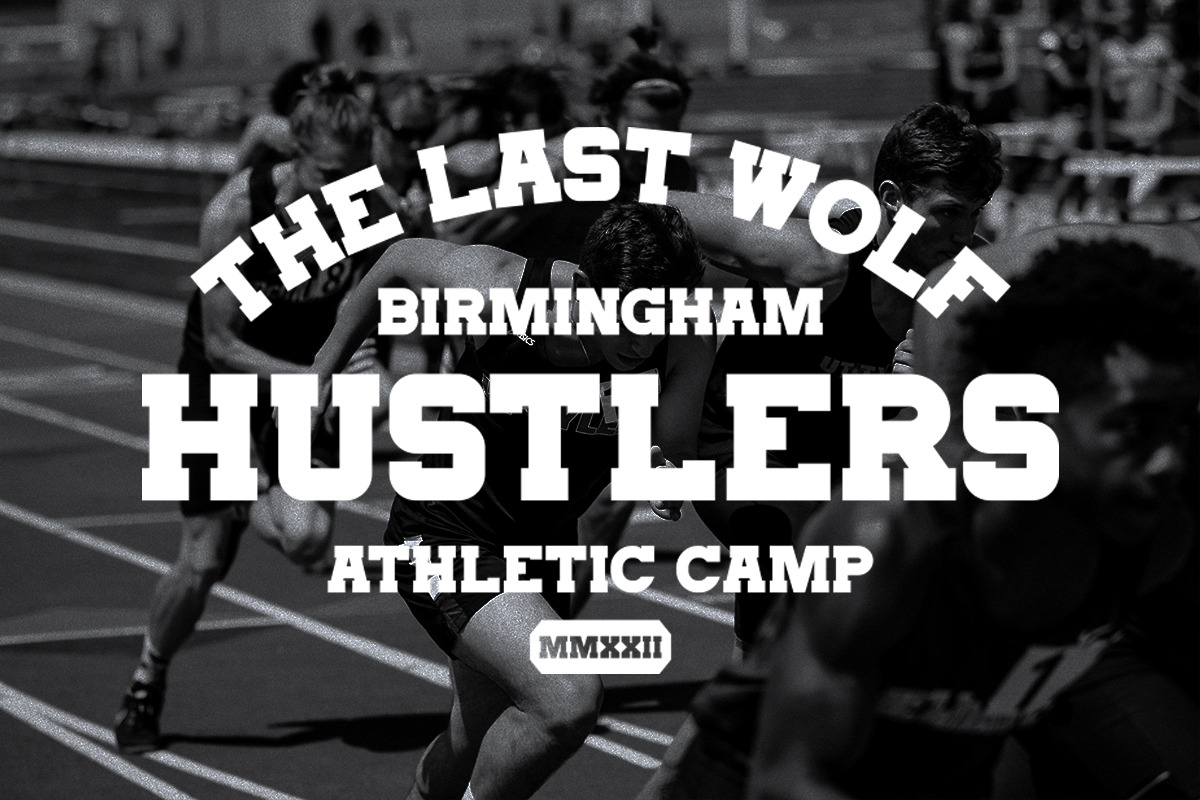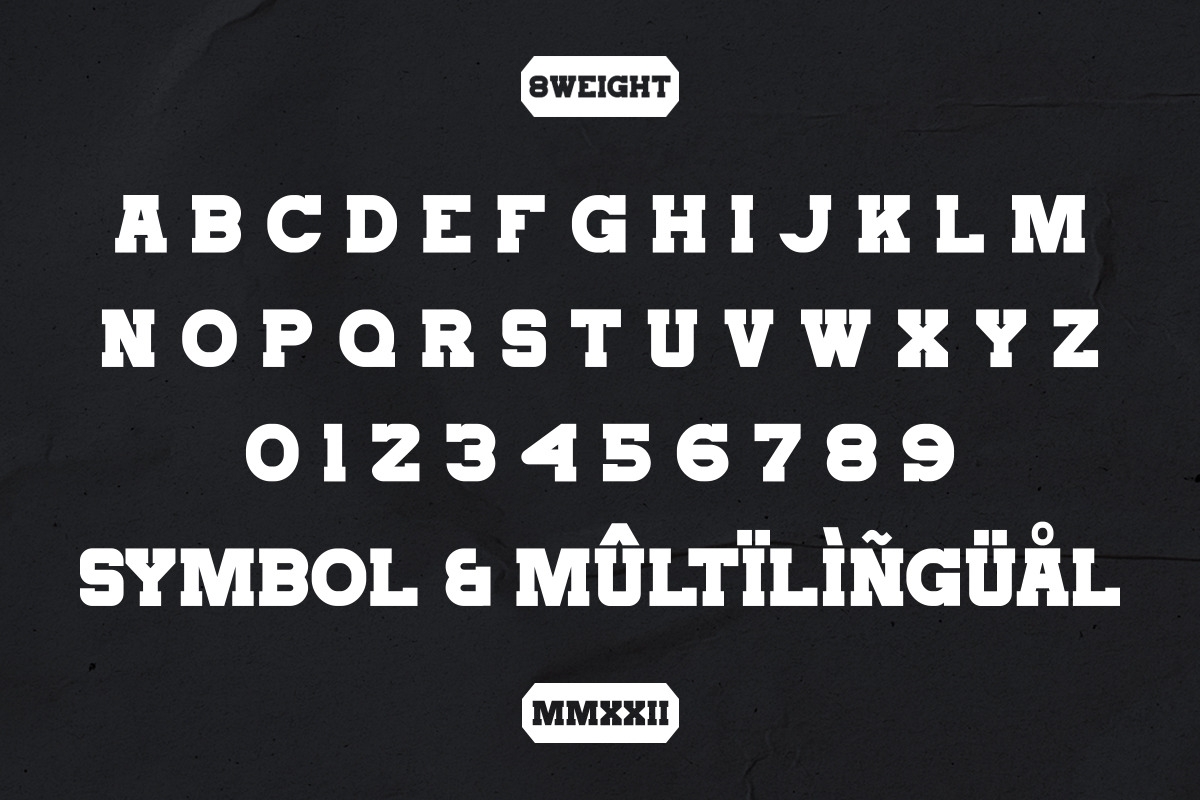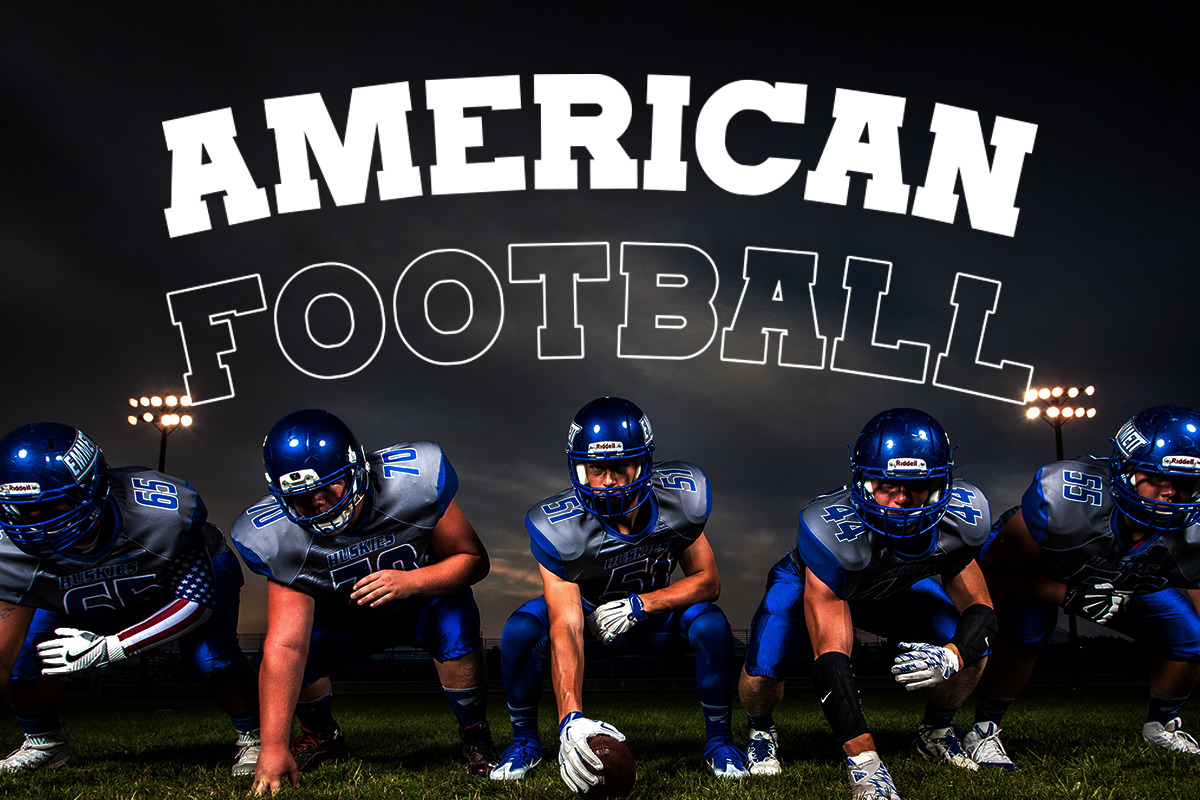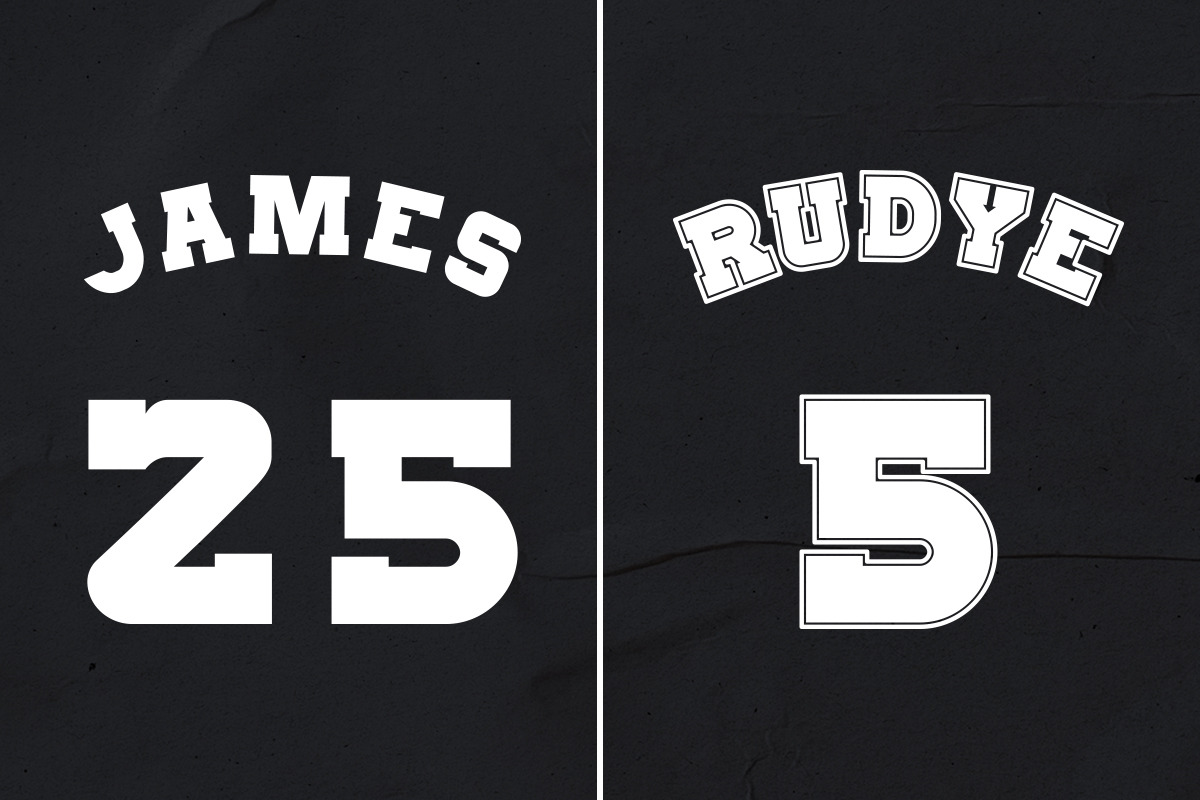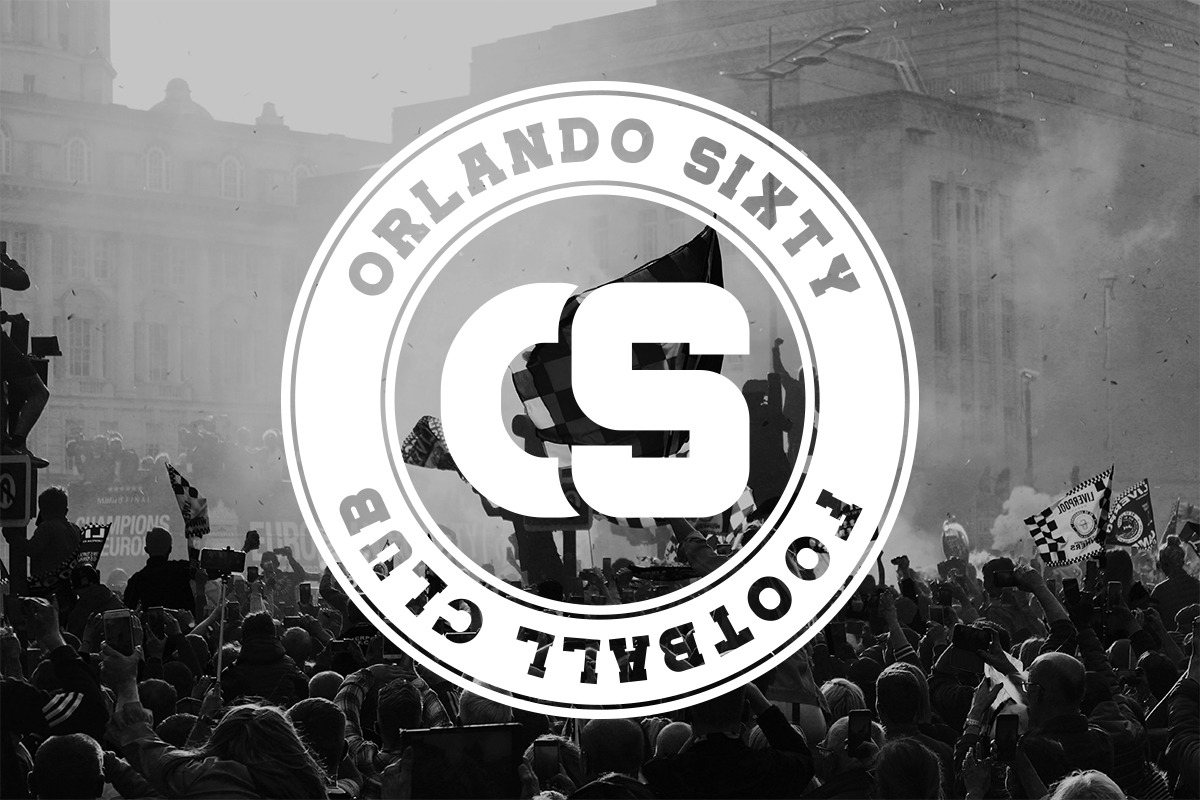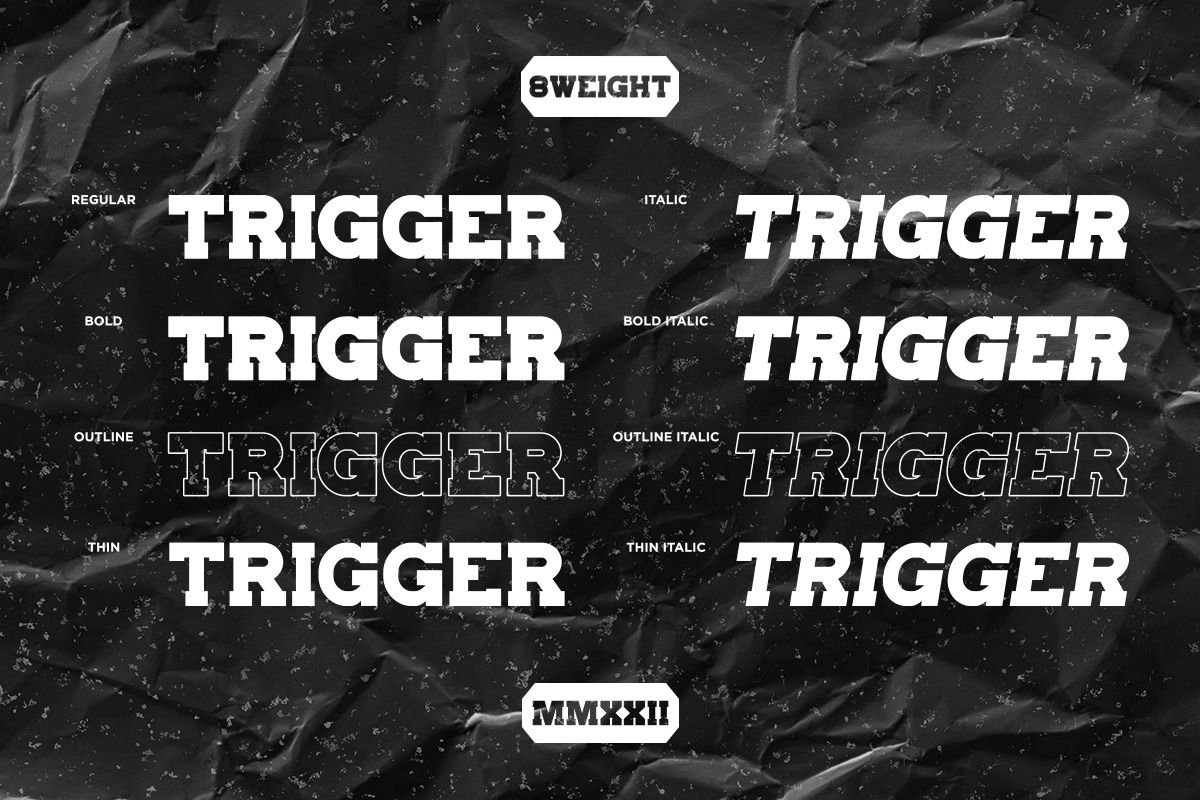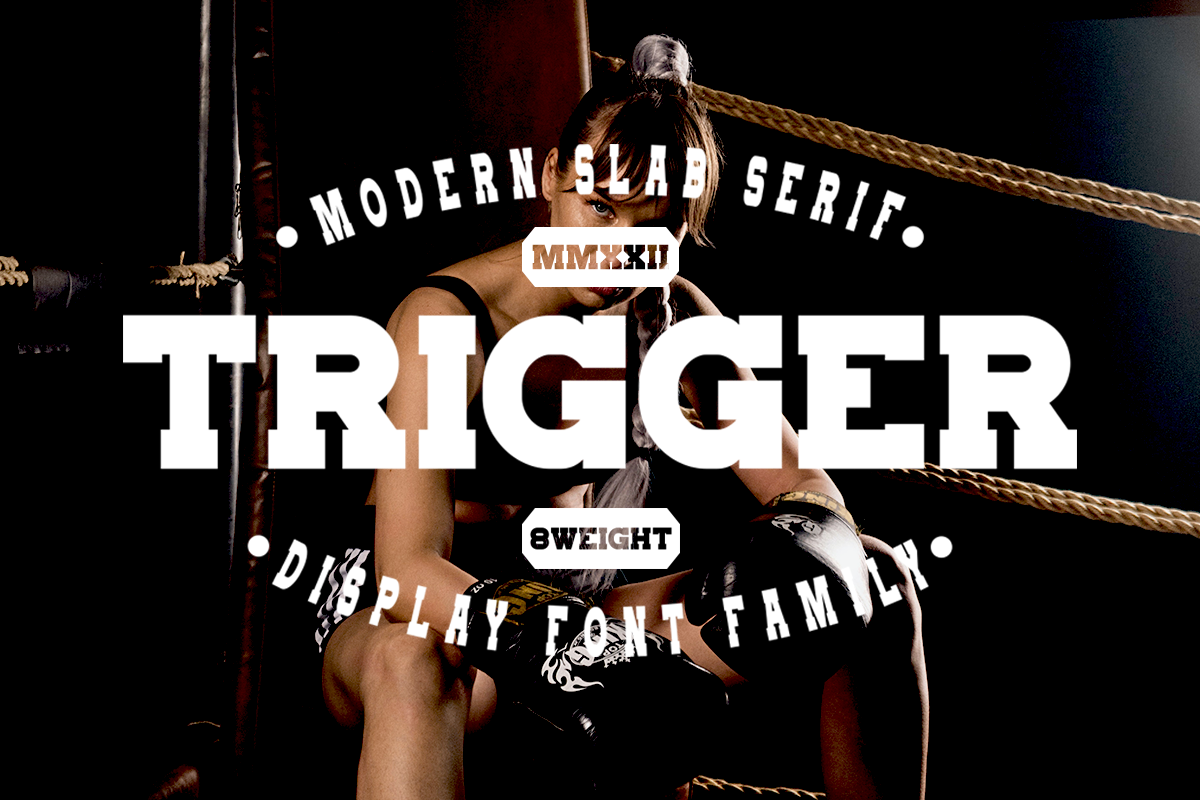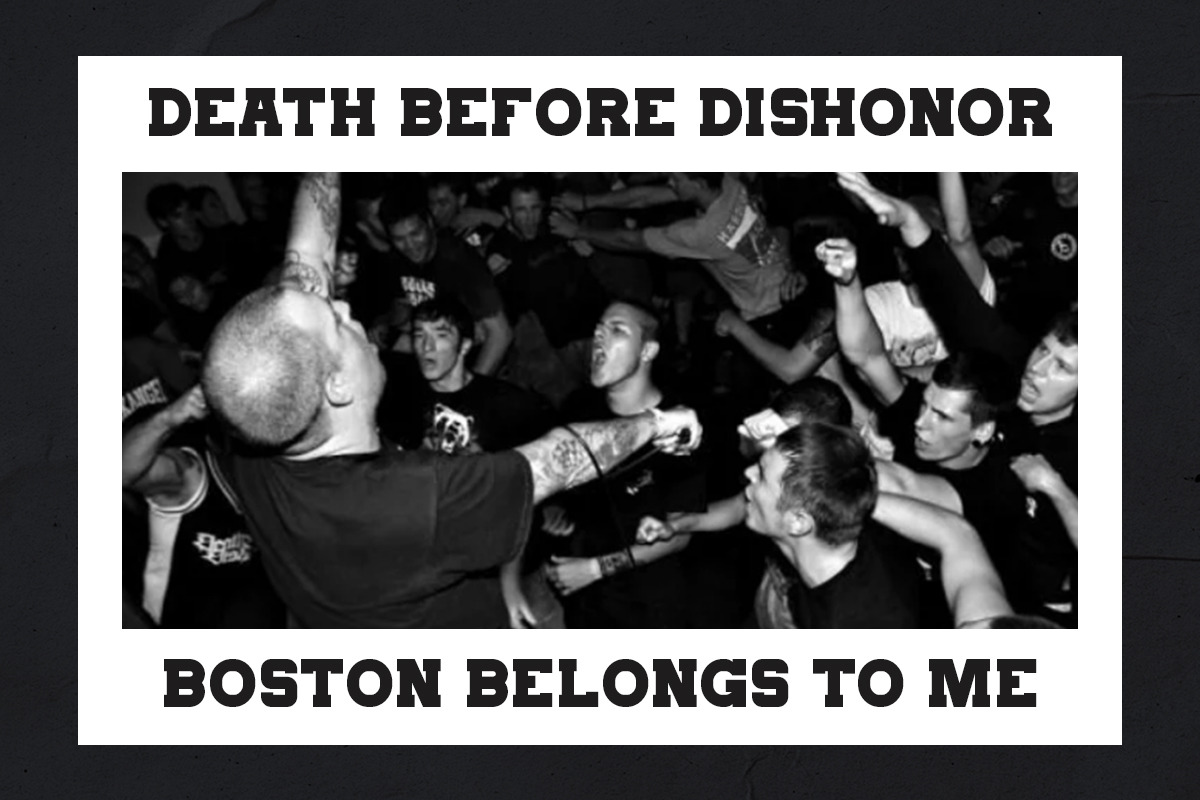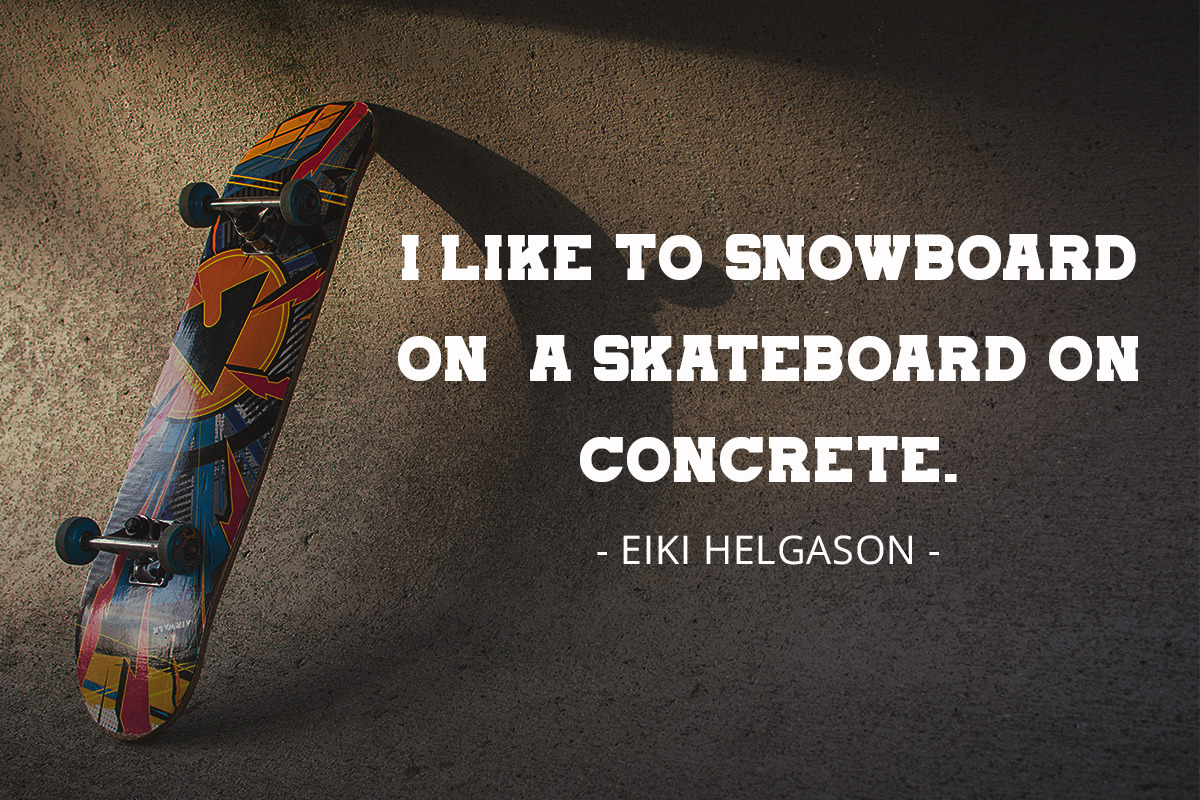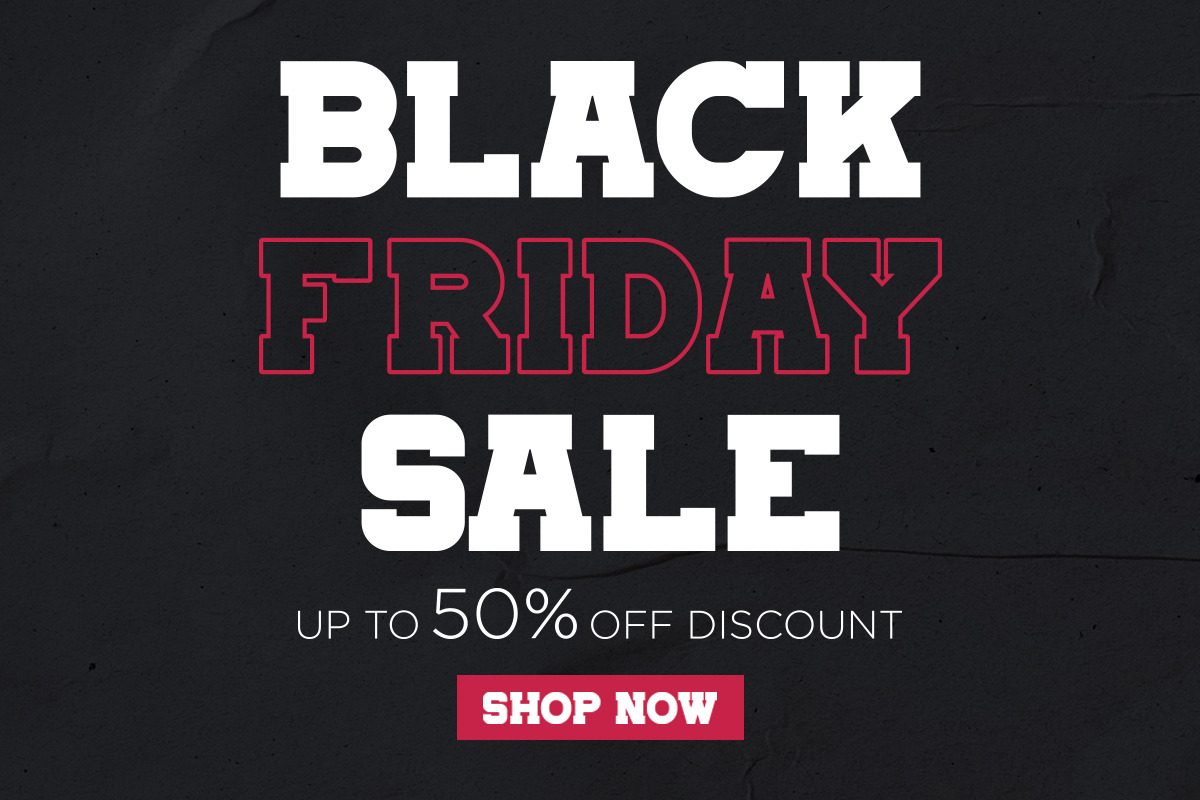
Trigger - Sport & Varsity Typeface
Trigger slab serif inspired by sporty design, vintage style with a touch of classic style. There are 8 different styles that you can apply in your design projects. This font is built with solid foundations, strong visuals, old-school movement, and a modern minimalist style. Outright is perfect for , Jersey , athletic, poster, branding projects, Logo design, Clothing Branding, product packaging, for magazine titles. for something with the theme of sports, album title, etc